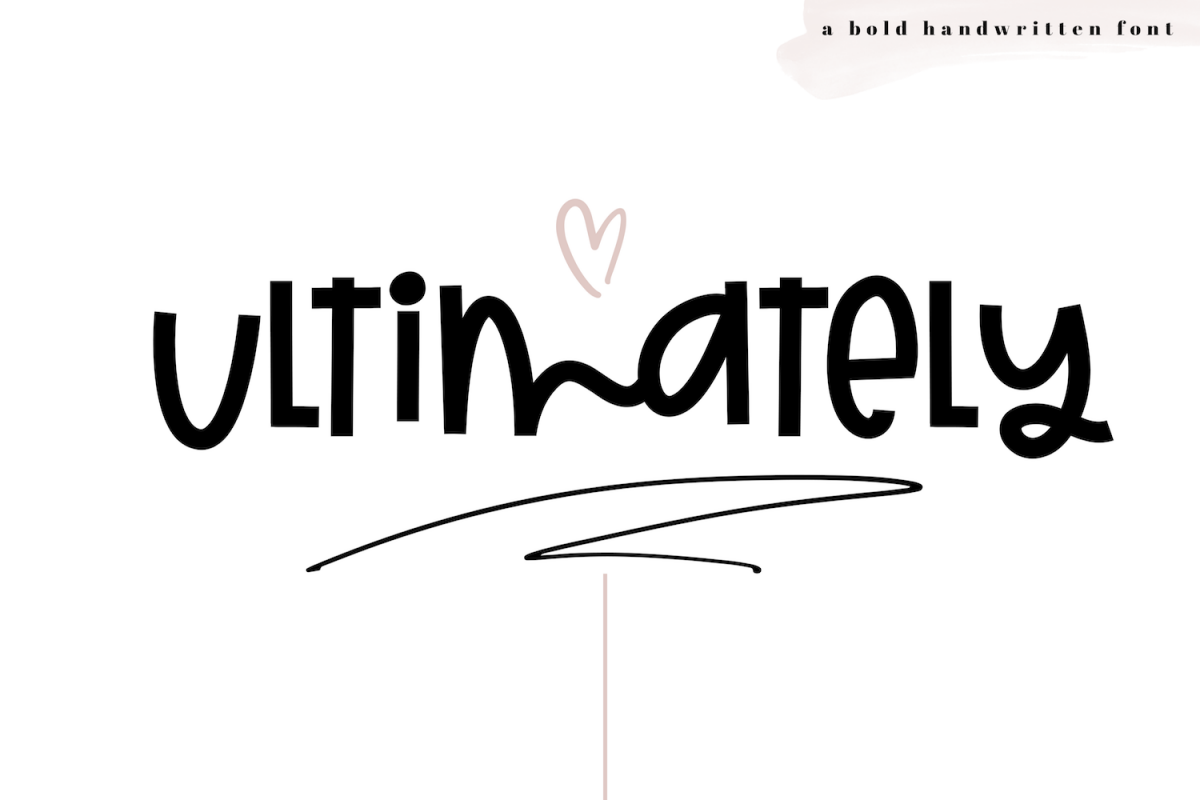
Ultimately - A Bold Handwritten Font
Ultimately
Ultimately is a bold handwritten font.
This font is perfect for quotes, headings, designs, logos, invitations and more!
This font *does* include accent characters.